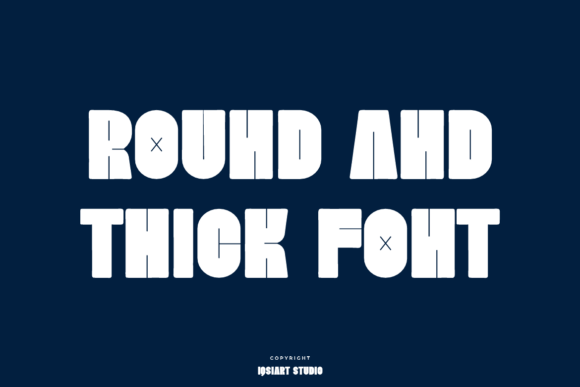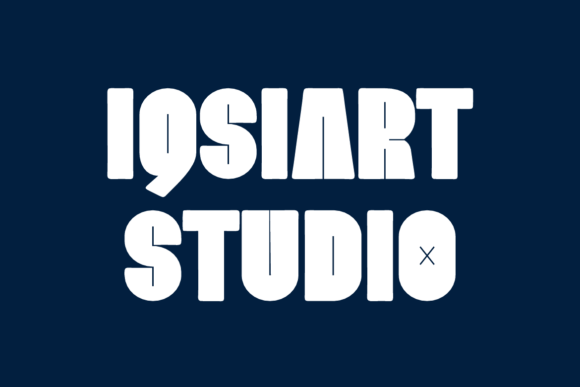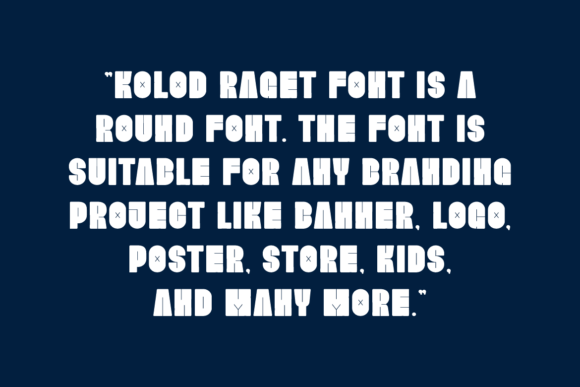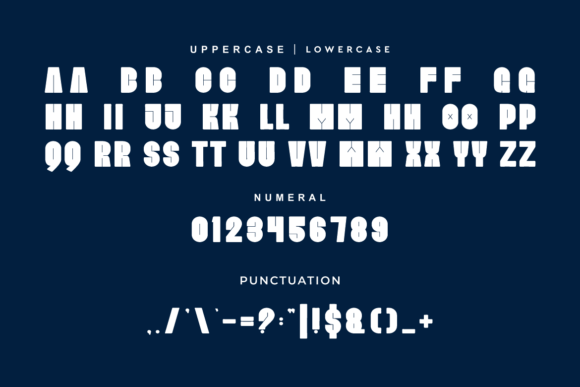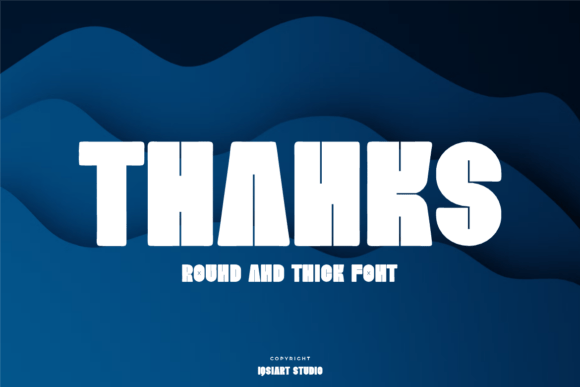
Introduction to Kolod Raget Font Font
Fonts play a crucial role in design, and the Kolod Raget Font font is a typeface that brings both character and versatility to any project. Whether you’re working on a branding project, a website, or a print design, the Kolod Raget Font font offers a unique style that can elevate your work.
Kolod Raget is a bold and quirky display font with a chunky, rounded structure that commands attention.
Perfect for posters, headlines, and playful branding, this font merges retro cartoon vibes with a modern edge Its exaggerated width and quirky split-letter cuts make it ideal for eye-catching visuals that refuse to be ignored.
Key Features of Kolod Raget Font Font
Why Choose Kolod Raget Font Font?
The Kolod Raget Font font is more than just a typeface – it’s a design tool that helps you communicate your message with style and clarity. Its unique character set and versatile design make it suitable for a wide range of applications, from elegant invitations to bold headlines.
With its carefully crafted letterforms and balanced proportions, the Kolod Raget Font font ensures readability and visual appeal across all mediums.
What makes Kolod Raget Font font special?
The Kolod Raget Font font stands out with its unique design, exceptional readability, and versatility across various design applications.